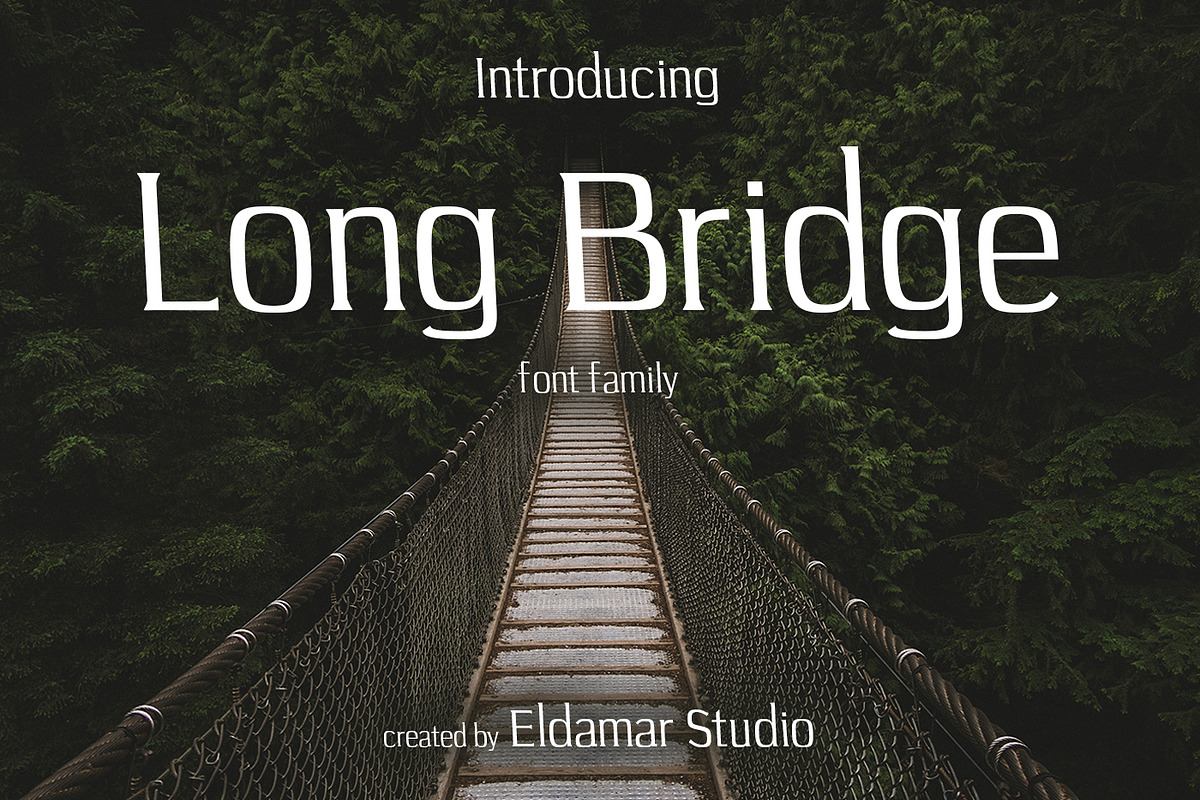
Long Bridge Font Free Download is a bold and distinctive serif typeface that combines vintage charm with modern structure. Featuring strong verticals, elegant serifs, and a slightly condensed form, Long Bridge is perfect for branding, book covers, posters, editorial layouts, and packaging that needs a touch of heritage and class.
With its refined letterforms and high readability, this font shines in both large headlines and structured body text. Whether you're working on a timeless logo or a sophisticated print project, Long Bridge adds strength and character to your typography.